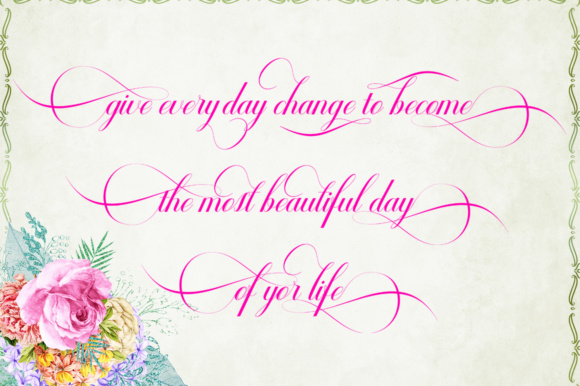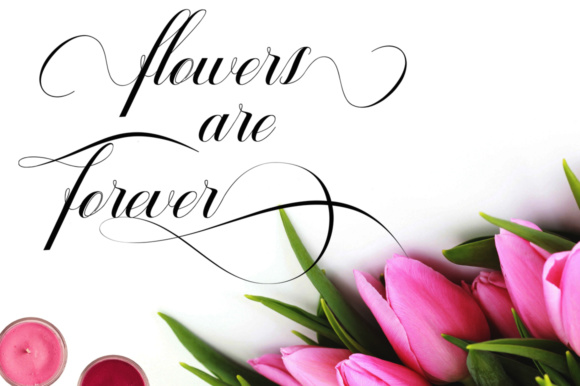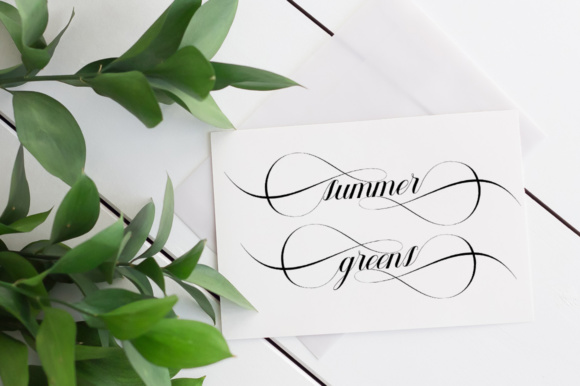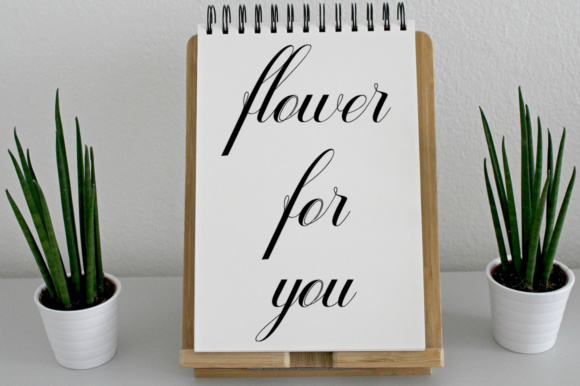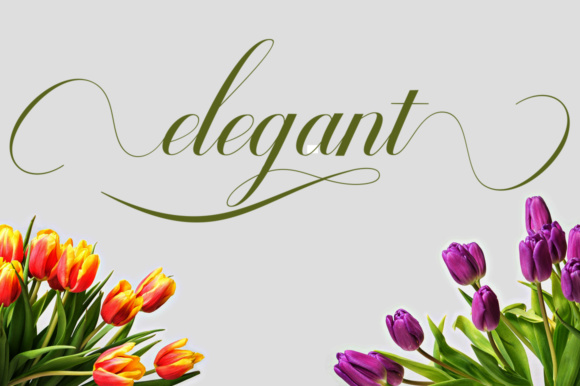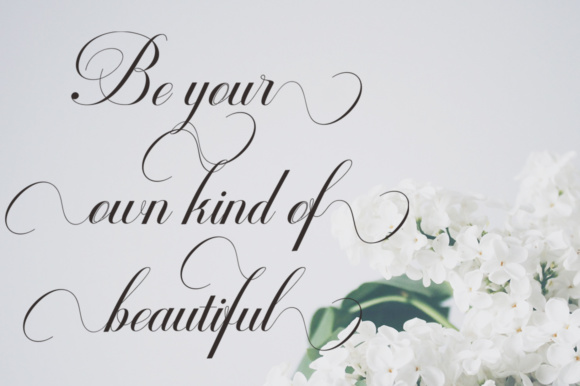
HomeScript FontsGeshane Font Script Fonts Geshane Font FacebookXPinterestWhatsApp Geshane Font Poster 2 Geshane Font Poster 3 Geshane Font Poster 4 Geshane Font Poster 5 Geshane Font Poster 6 Geshane Font Poster 7 About Geshane Font The Geshane is an elegant script font. It has a wide kerning which makes it perfect for formal occasions. DOWNLOAD ON CREATIVE FABRICAThis font is sold and delivered by Creative Fabrica. Font Canyon may earn a commission if you buy through this link. People also explored Molina Font Sparkling Font Tomorrow and Today Font Hilde Font Delighted Panda Font Simple Signature Font Stayhome Font Coral Bella Canvas 3001 Funky Tee Mockup Sketch Poster Mockup 463 0 TagsGeshane Font Previous articleRafttel FontNext articleCiellda Font LEAVE A REPLY Cancel reply Comment: Please enter your comment! Name:* Please enter your name here Email:* You have entered an incorrect email address! Please enter your email address here Website: Save my name, email, and website in this browser for the next time I comment. Personal Use Free Talking on Personal Use Free Read more about this font Joystix Monospace Personal Use Free Read more about this font Fakedes Personal Use Free Read more about this font Fuixg Personal Use Free Read more about this font BLOG Best Fonts for YouTube Videos: Make Your Thumbnails Stand Out Best Fonts for YouTube Videos: Make Your Thumbnails Stand Out Choosing the right font can make a massive difference in how your YouTube videos perform.... Exploring Font Trends Where to Buy American Fonts Online in 2024 Elegant Wedding Invitation Fonts – Handwritten & Script Fonts